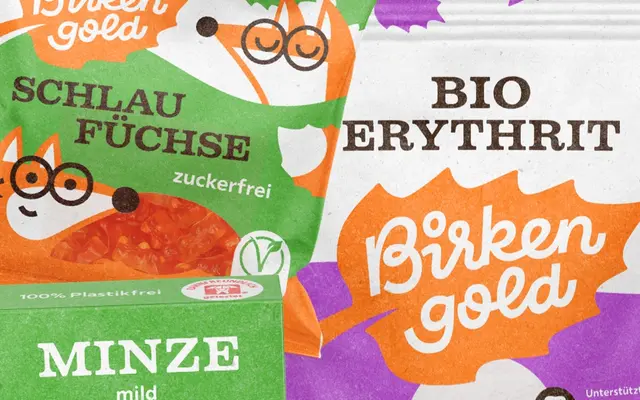
Firelli
Typejockeys · Teddy Derkert
A 14-style serif family by Teddy Derkert, spanning Thin to Black with italics, swash caps and variable font support, aimed at editorial and magazine work.
Designed by Teddy Derkert and produced by Typejockeys, Firelli covers seven weights from Thin to Black, each with a matching italic. OpenType features include swash caps, small caps, ligatures, circled numbers, and inferior and superior figures. The family is positioned for content-heavy editorial projects such as magazines and annual reports, with fine headline details and enough range to sustain longer reading text.
Firelli is a serif family with refined details suited to both display and text use; its mention of incorruptible headline details and solid text posture places it in the contemporary humanist or transitional serif tradition.